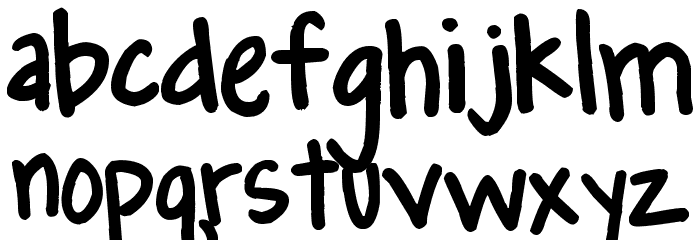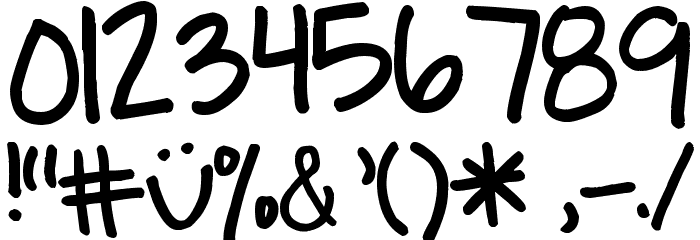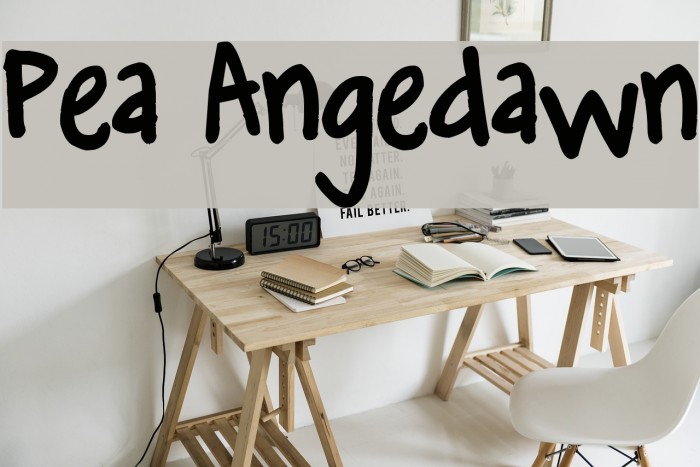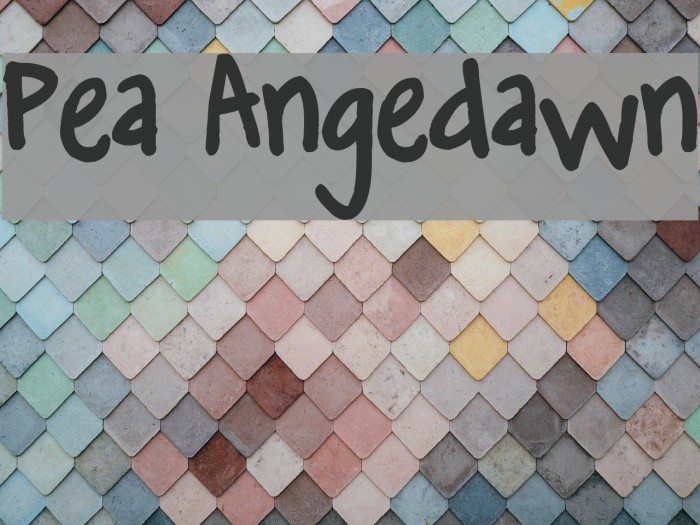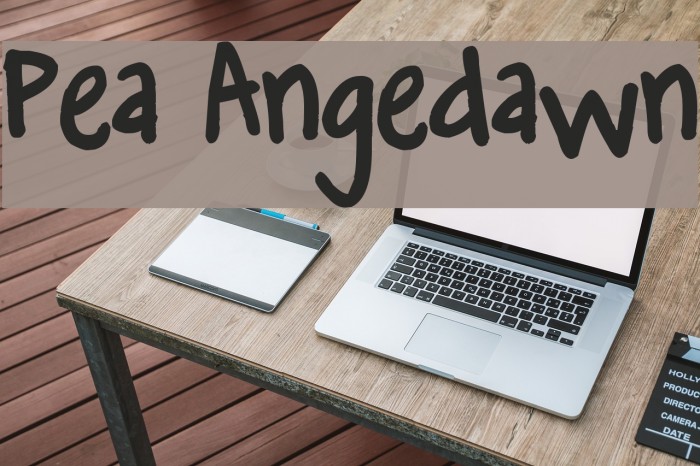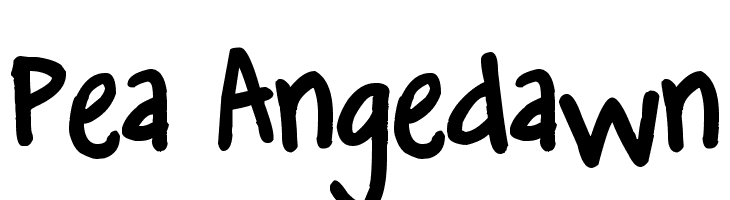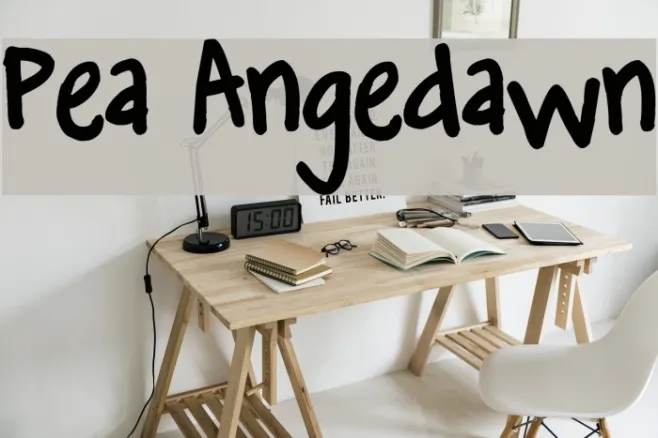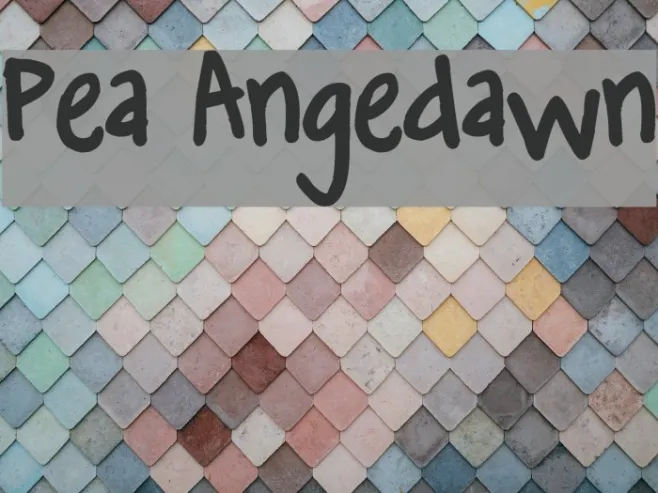
Pea Angedawn Font
This playful and casual handwritten font exudes a sense of spontaneity and informality. The letters are bold and slightly irregular, giving them a lively and dynamic appearance. The strokes are thick and consistent, with rounded edges that add to the friendly and approachable feel. The uppercase and lowercase letters maintain a cohesive style, while the numerals and special characters complement the overall design. This font is perfect for projects that require a personal touch or a fun, relaxed vibe.
A bold, playful handwritten font with a casual and dynamic style.
- Proposed Projects: Ideal for greeting cards, children's books, playful branding, social media graphics, and informal invitations.
- Overall Style: Casual, Playful
- Use Case: Headlines, Logos, Informal Text